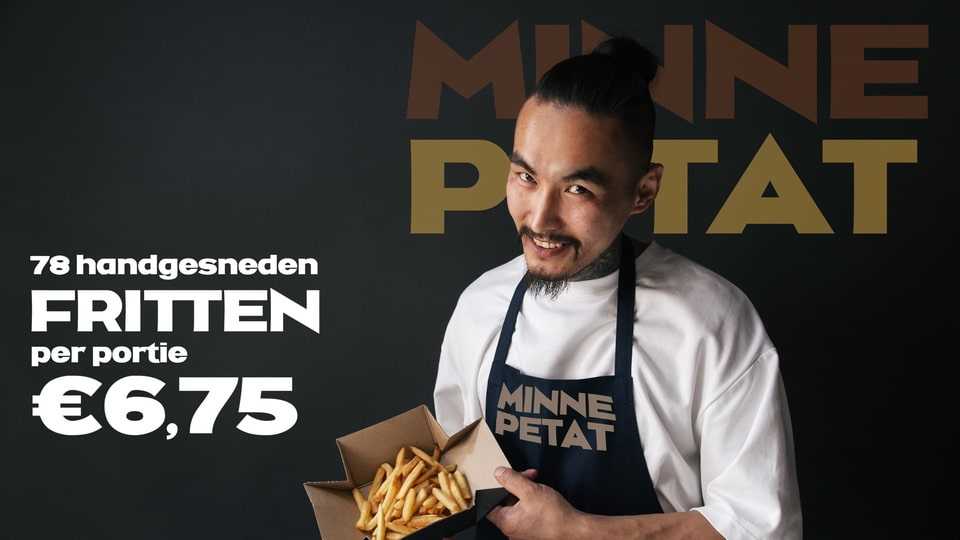
Download Minne Petat font, the display typeface that commands attention with its bold, wide, and imposing presence. It is a typeface designed for making a strong visual statement.
Designer: Tup Wanders